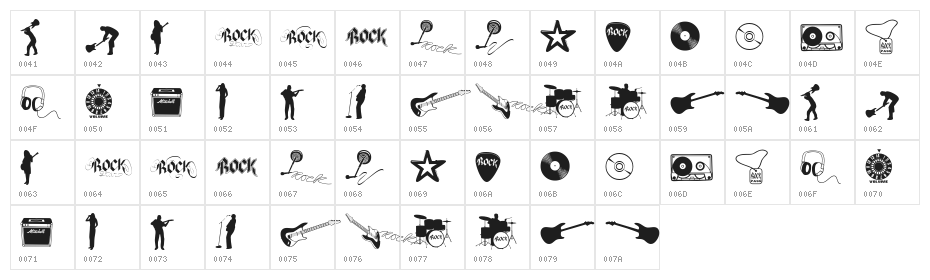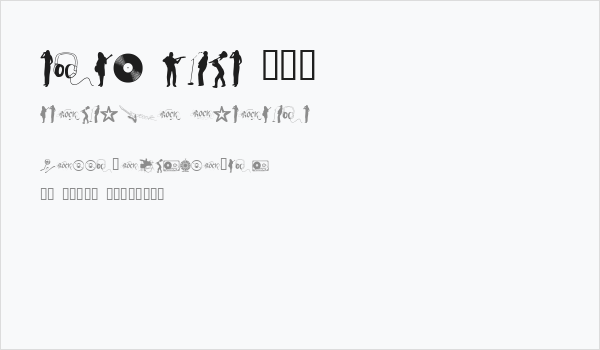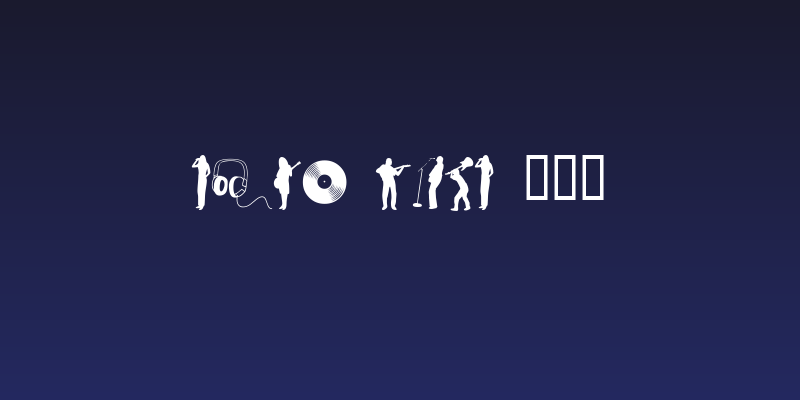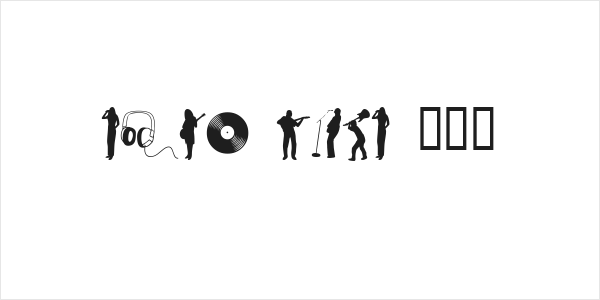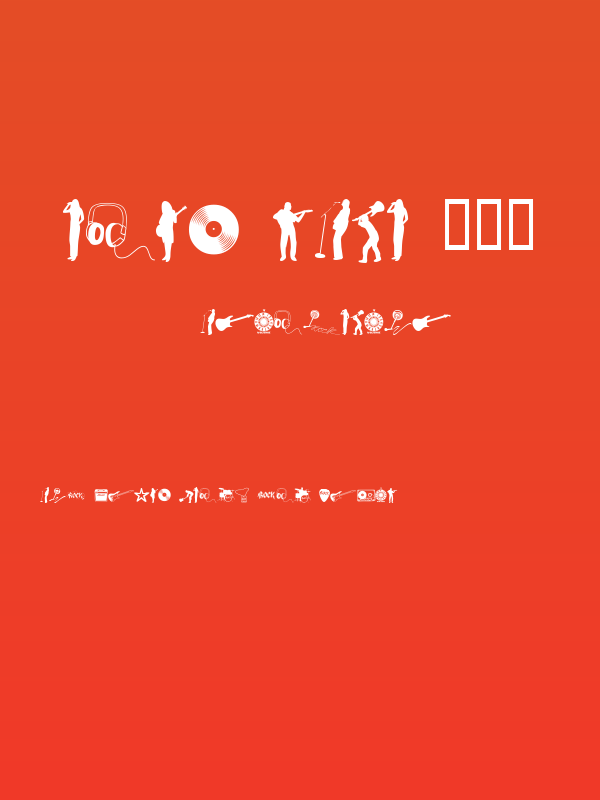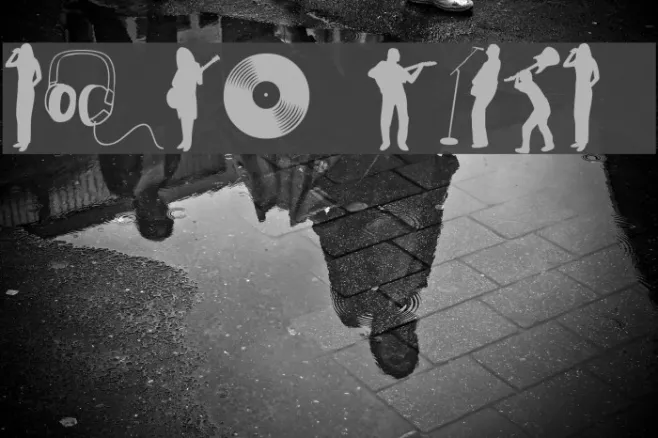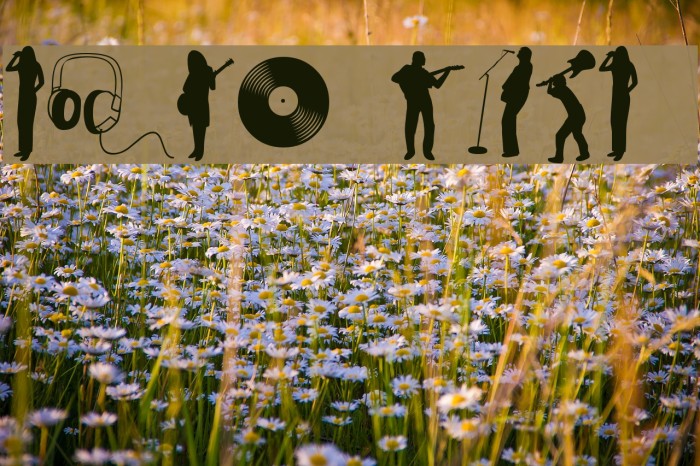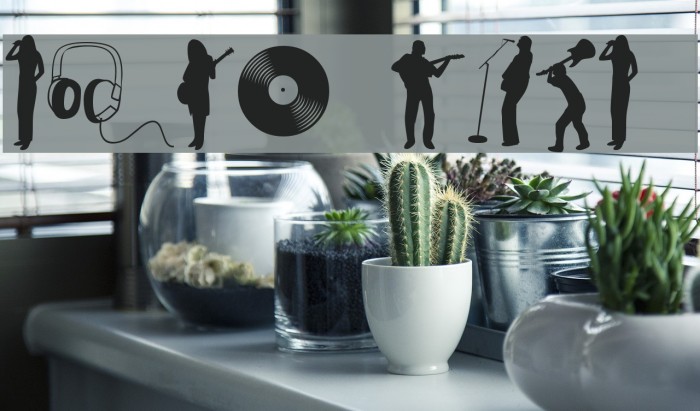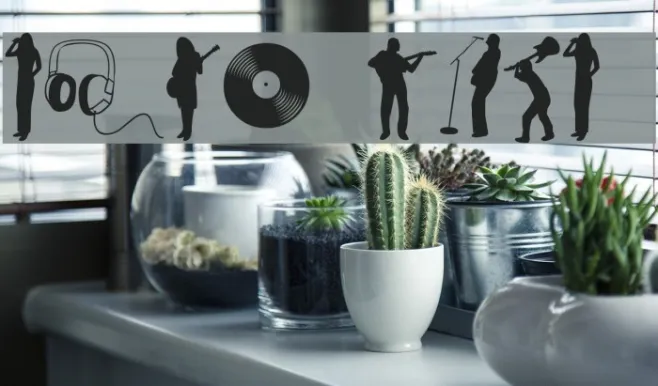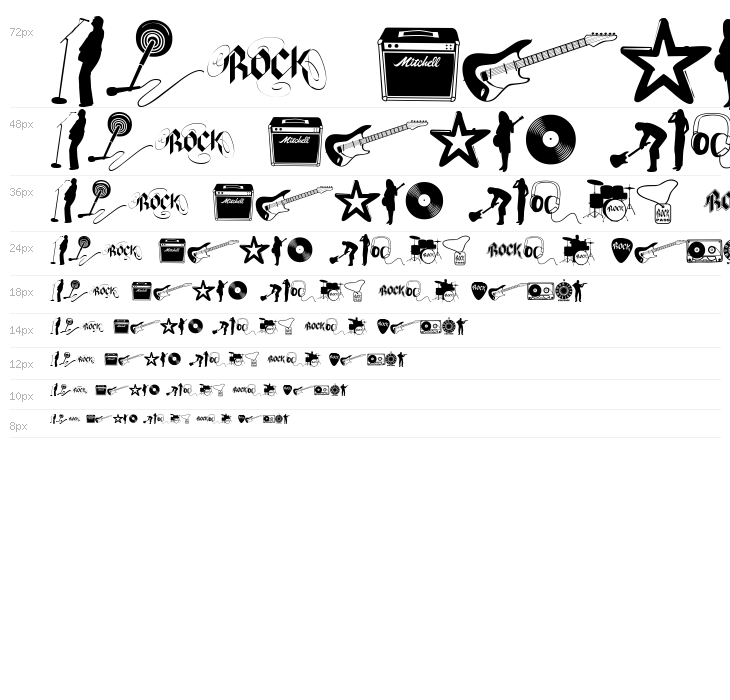
Rock Star 2.0 Font
Rock Star 2.0 Description
This is not a traditional font but rather a collection of rock-themed graphics and symbols. It includes silhouettes of musicians, guitars, amplifiers, and other music-related imagery. The style is bold and energetic, capturing the essence of rock music with dynamic illustrations. The elements are designed to convey a sense of movement and excitement, making them suitable for creative projects that require a musical or rebellious theme.
| Use Case | Logos, Posters, Merchandise |
| Proposed Projects | Ideal for music event posters, album covers, band merchandise, and any project needing a rock music theme. |